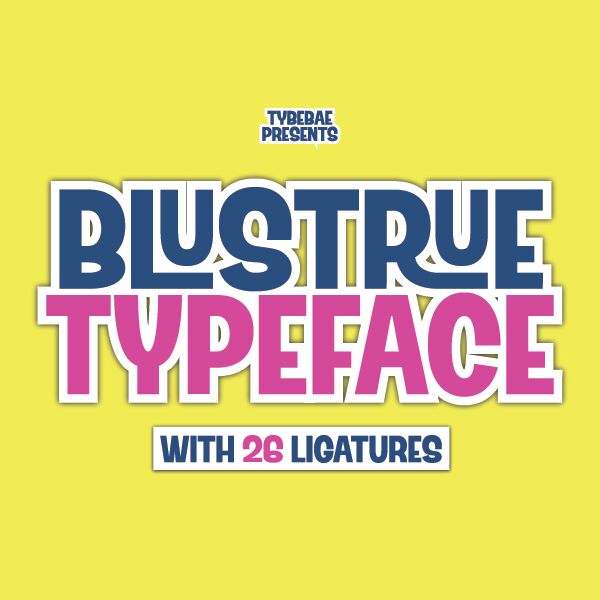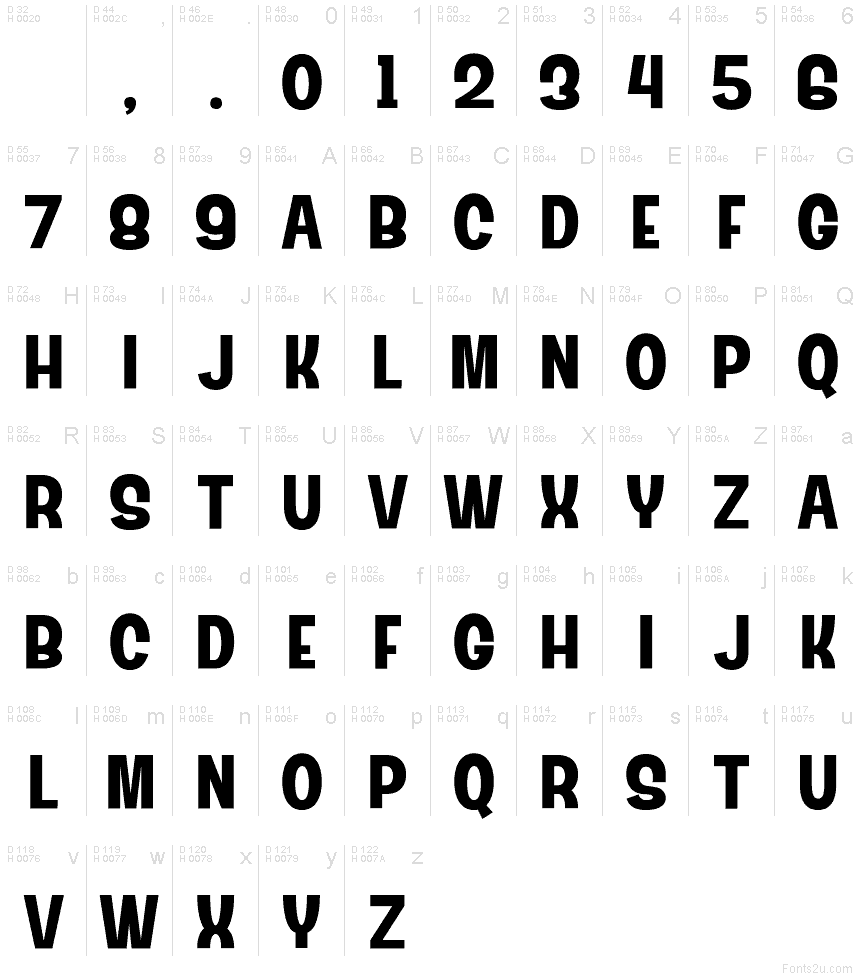
Blustrue font by Typebae Foundry is a free comic display typeface that finally gives bold headlines some real backbone. Its chunky, upright letters feel loud and confident, but the soft curves keep it friendly instead of shouty. The strokes look inky and solid, so every word lands with a satisfying thud-great when you need impact without slipping into chaos or kitsch.
Using Blustrue, this free font shines on posters, comic covers, game titles, YouTube thumbnails, kids’ branding, stickers, and bold social graphics. The tight spacing creates a strong block of color that grabs attention from a distance, while the simple shapes stay legible at smaller sizes. Try pairing Blustrue with a clean geometric sans for body text and let this typeface handle the punchy, all-caps headlines.